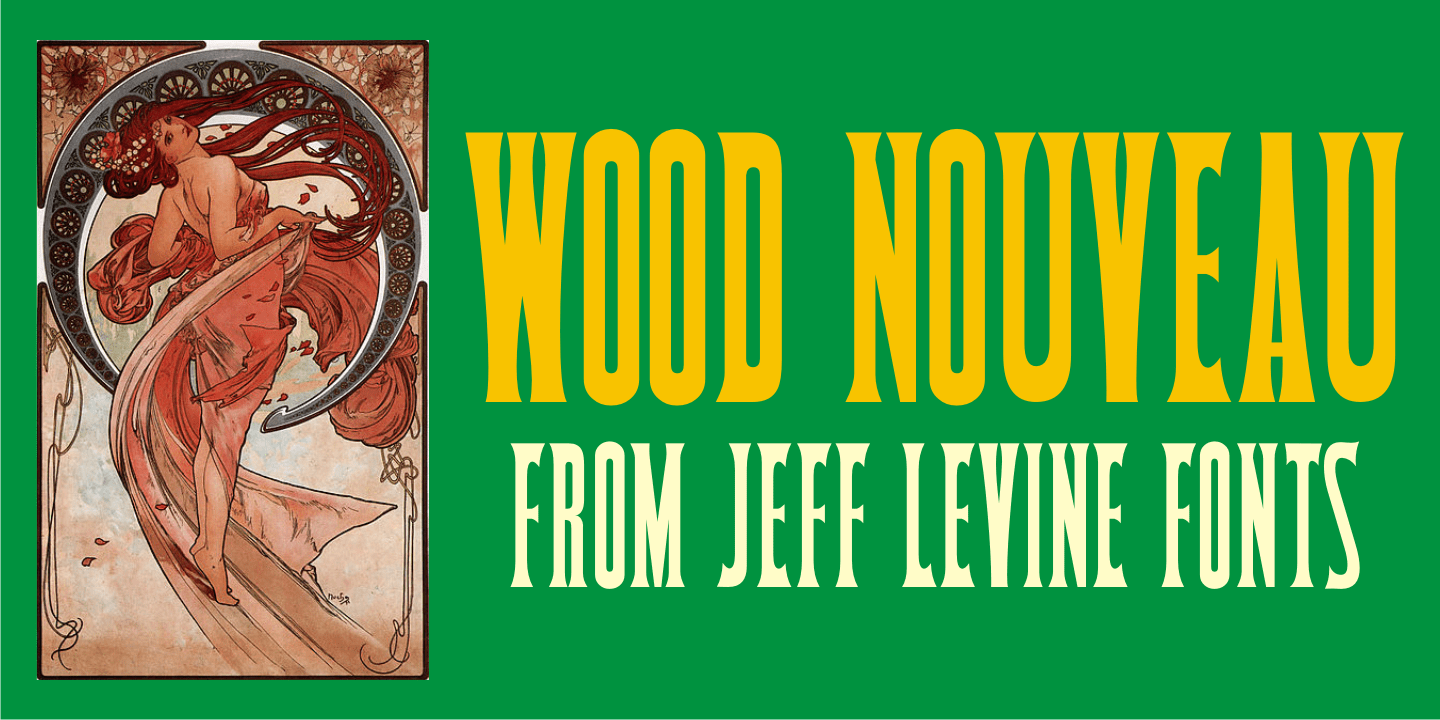
Wood Nouveau
The hand cut wood type which was the inspiration for Wood Nouveau JNL conjures up images of the artistic period between the Victorian Era and 1920s Moderne, as well as the hippie counterculture active in the later part of the 20th Century.
During the late 1960s and early 1970s, rock posters, fliers, store signs and other printed ephemera of 'the love generation' borrowed heavily from the Art Noveau style in both art and typography. An Alphonse Mucha-inspired flower girl could adorn a concert poster that also combined both vintage wood type and hand-lettered elements.
Although this particular type design might well have preceded the actual start of the Nouveau period, the softer, rounder lines of each character lent themselves well to this emerging style.